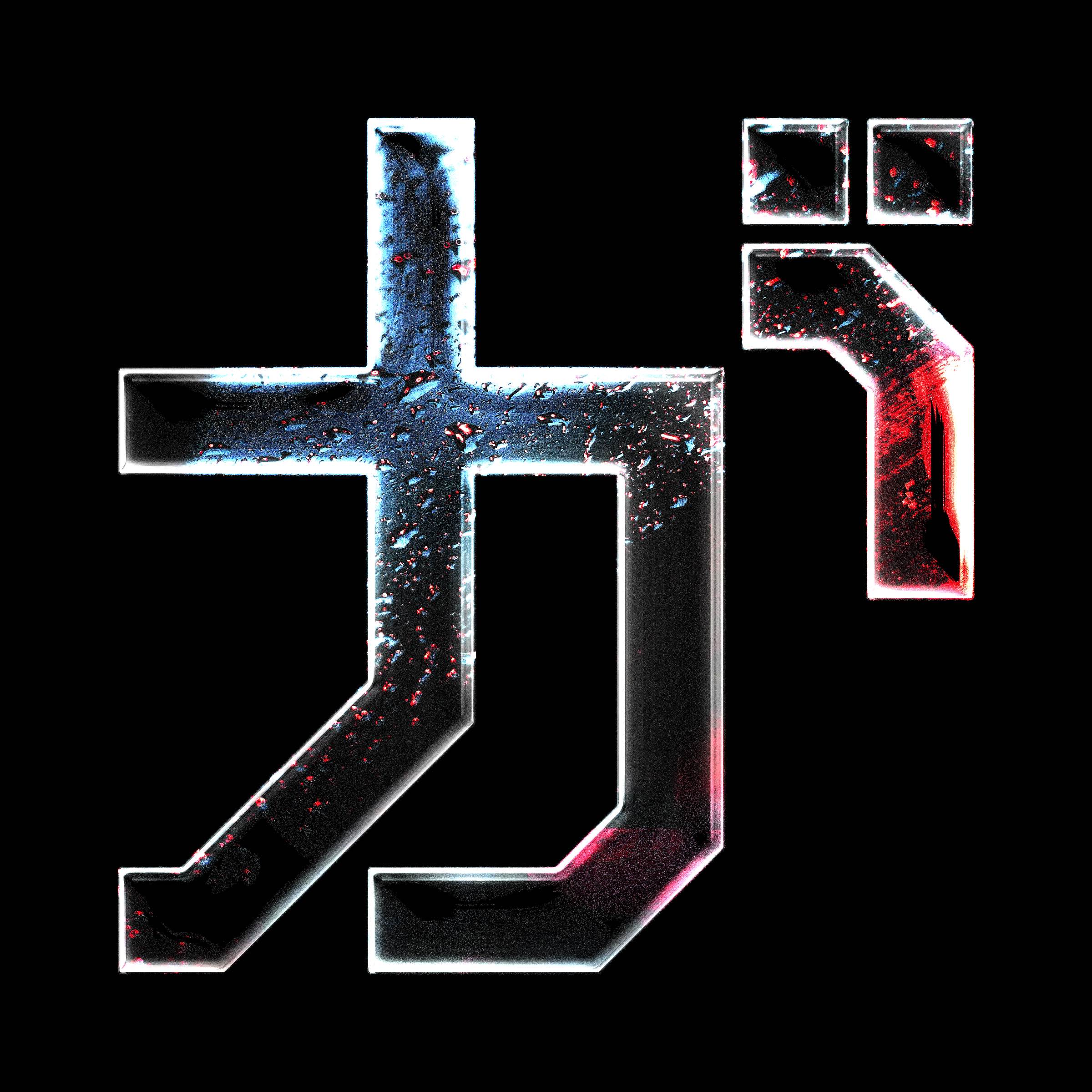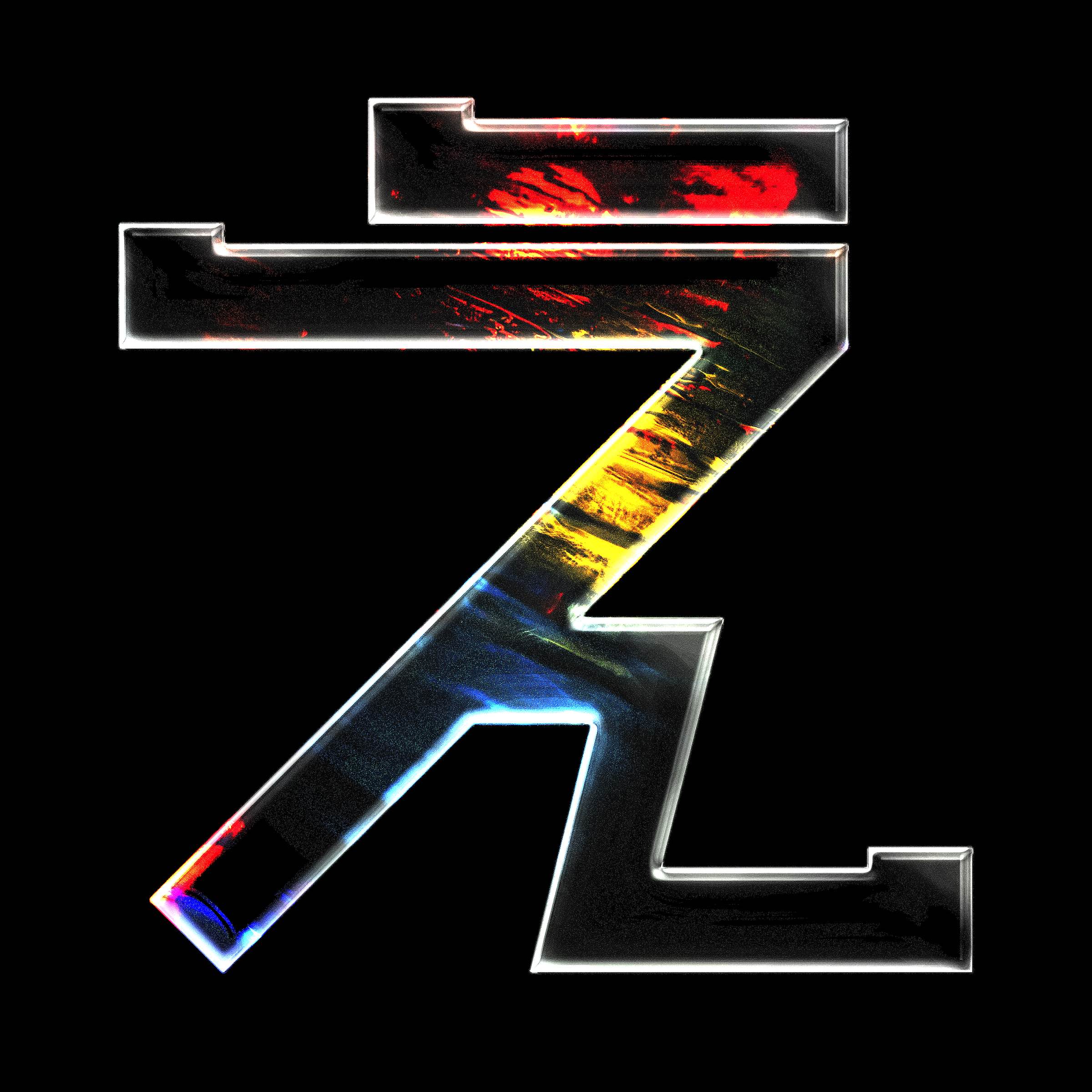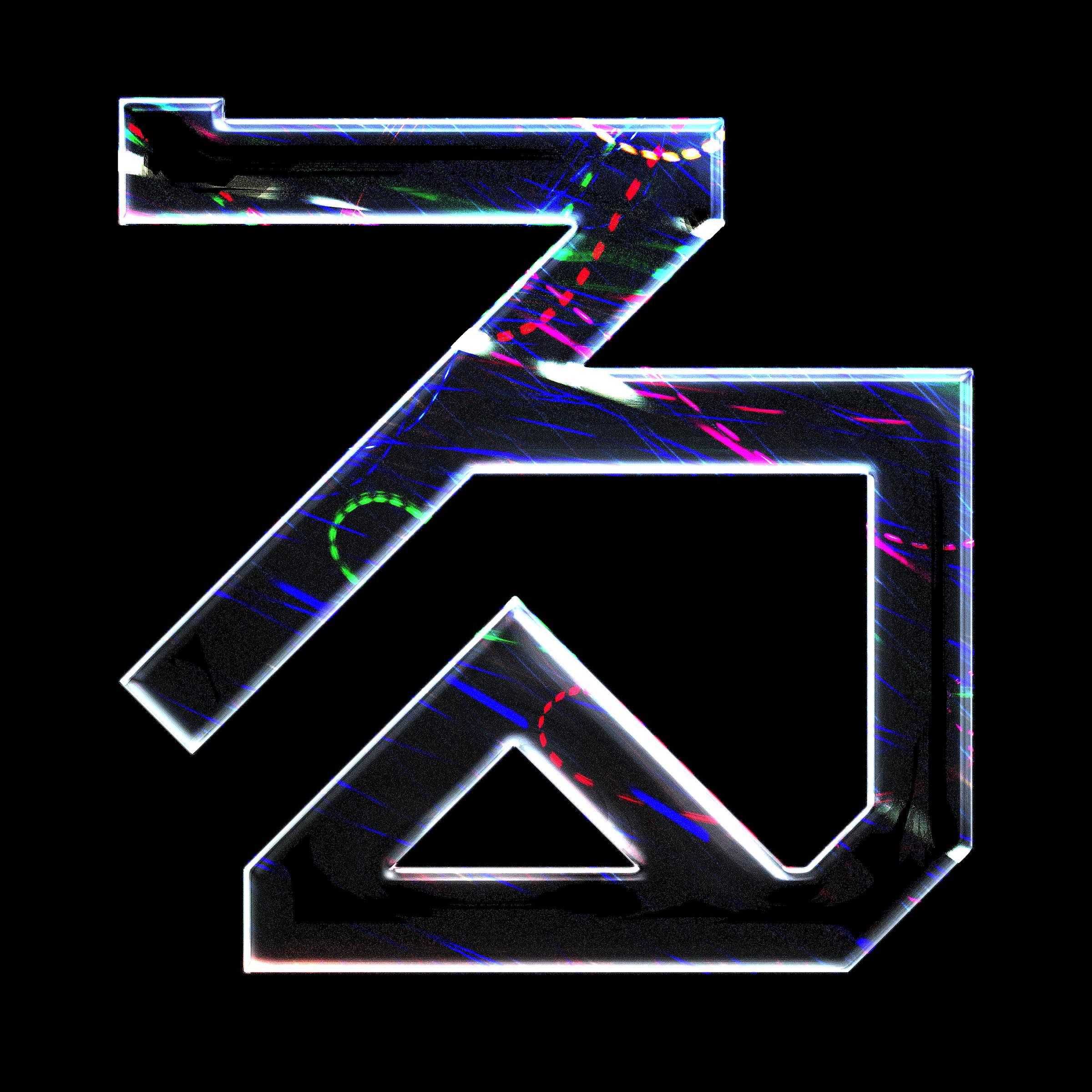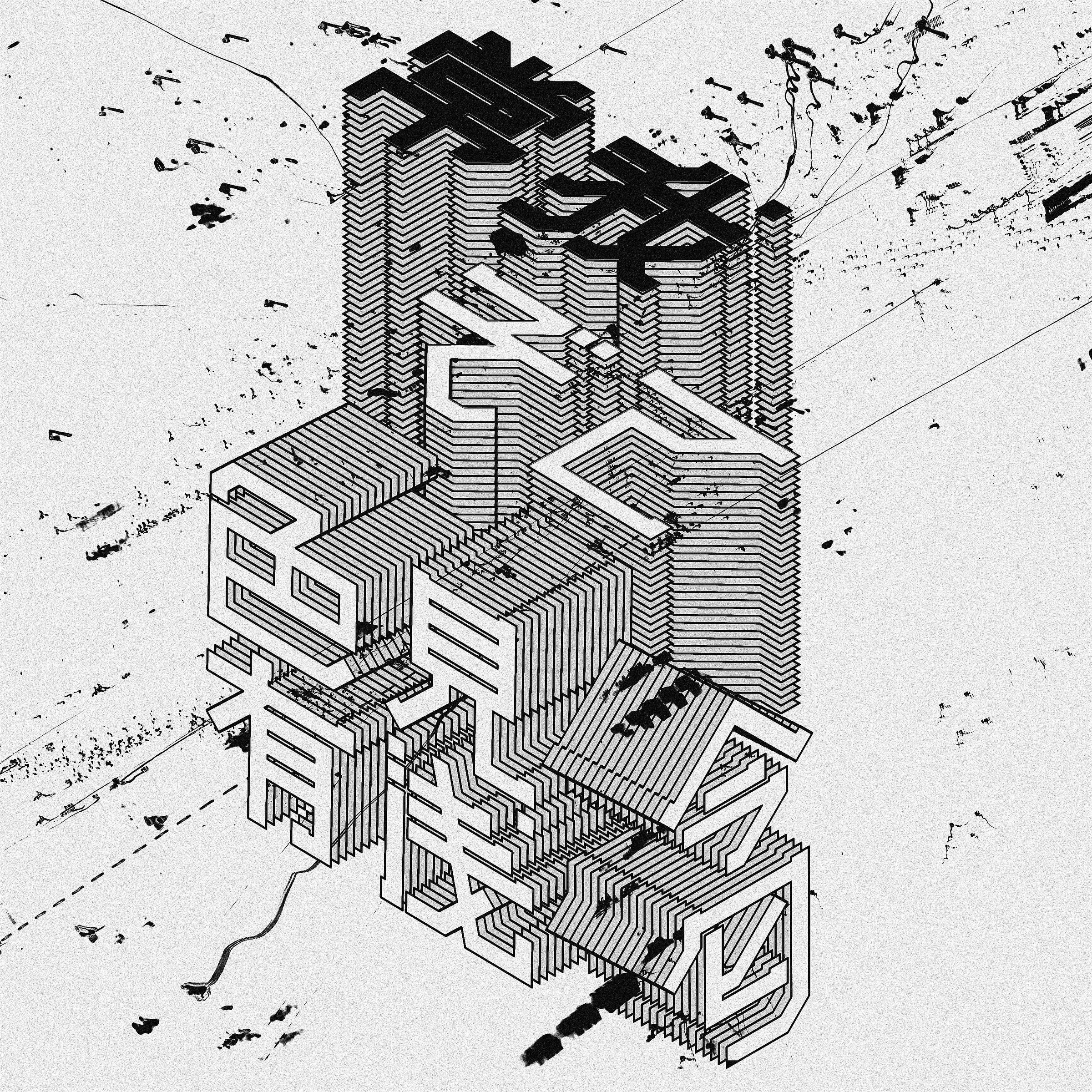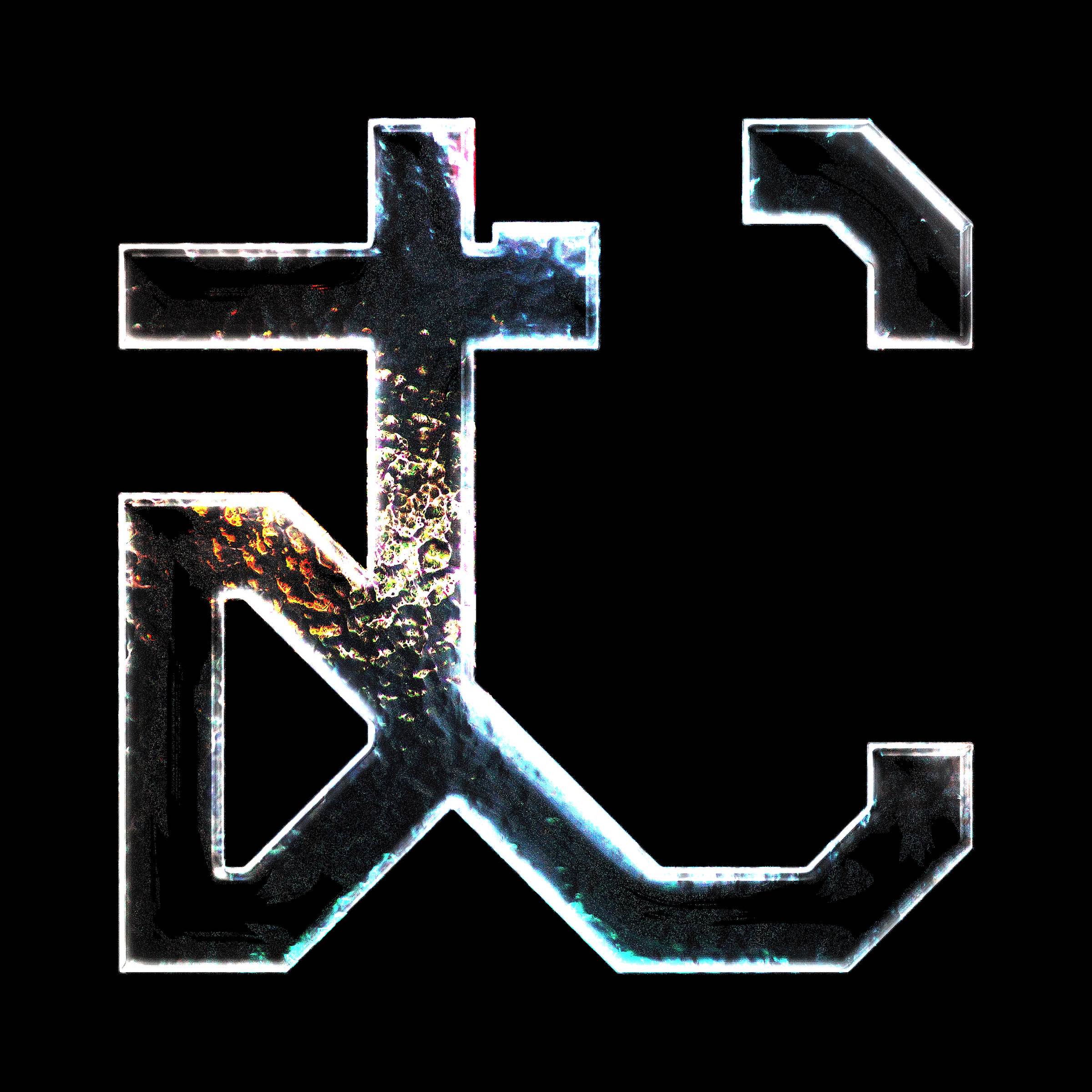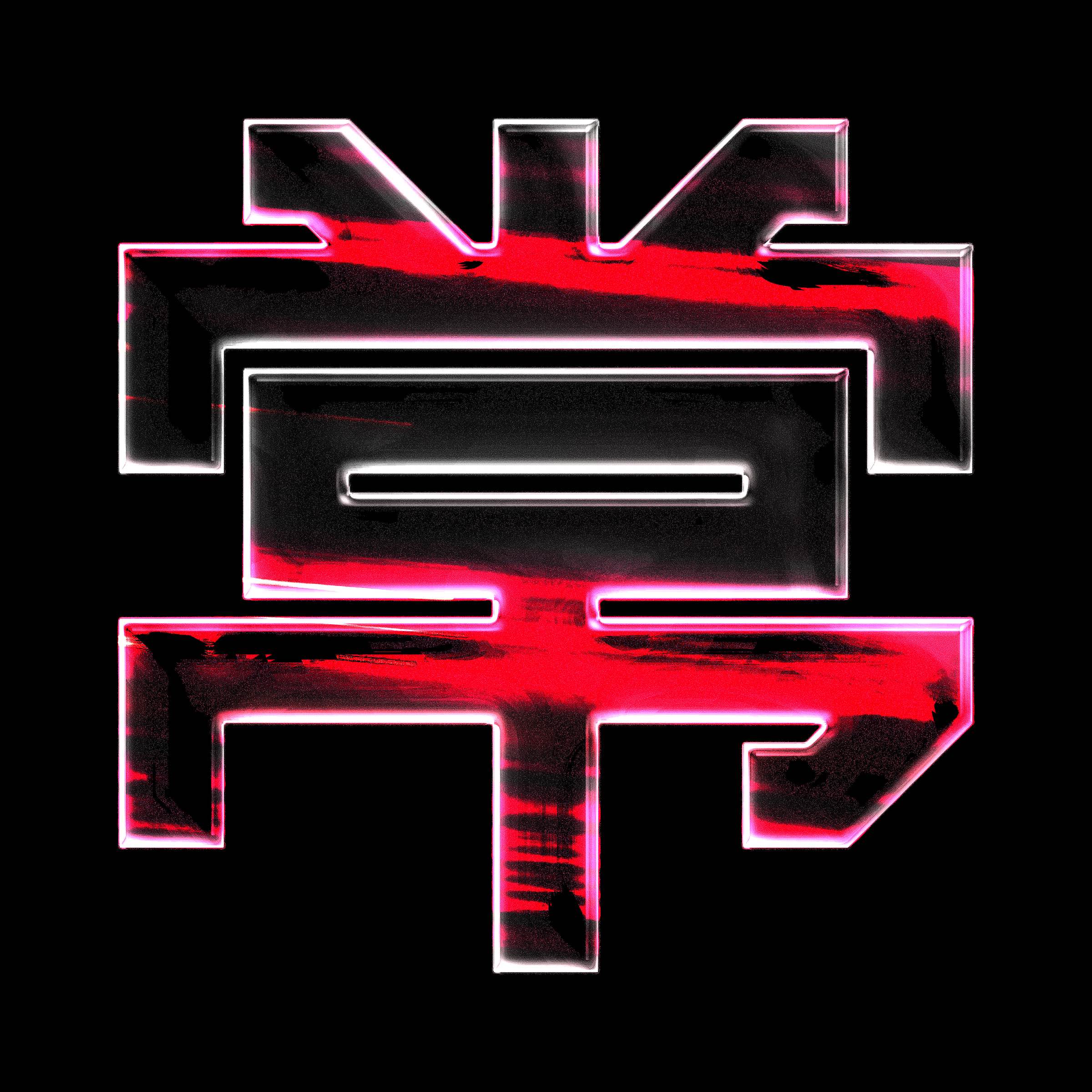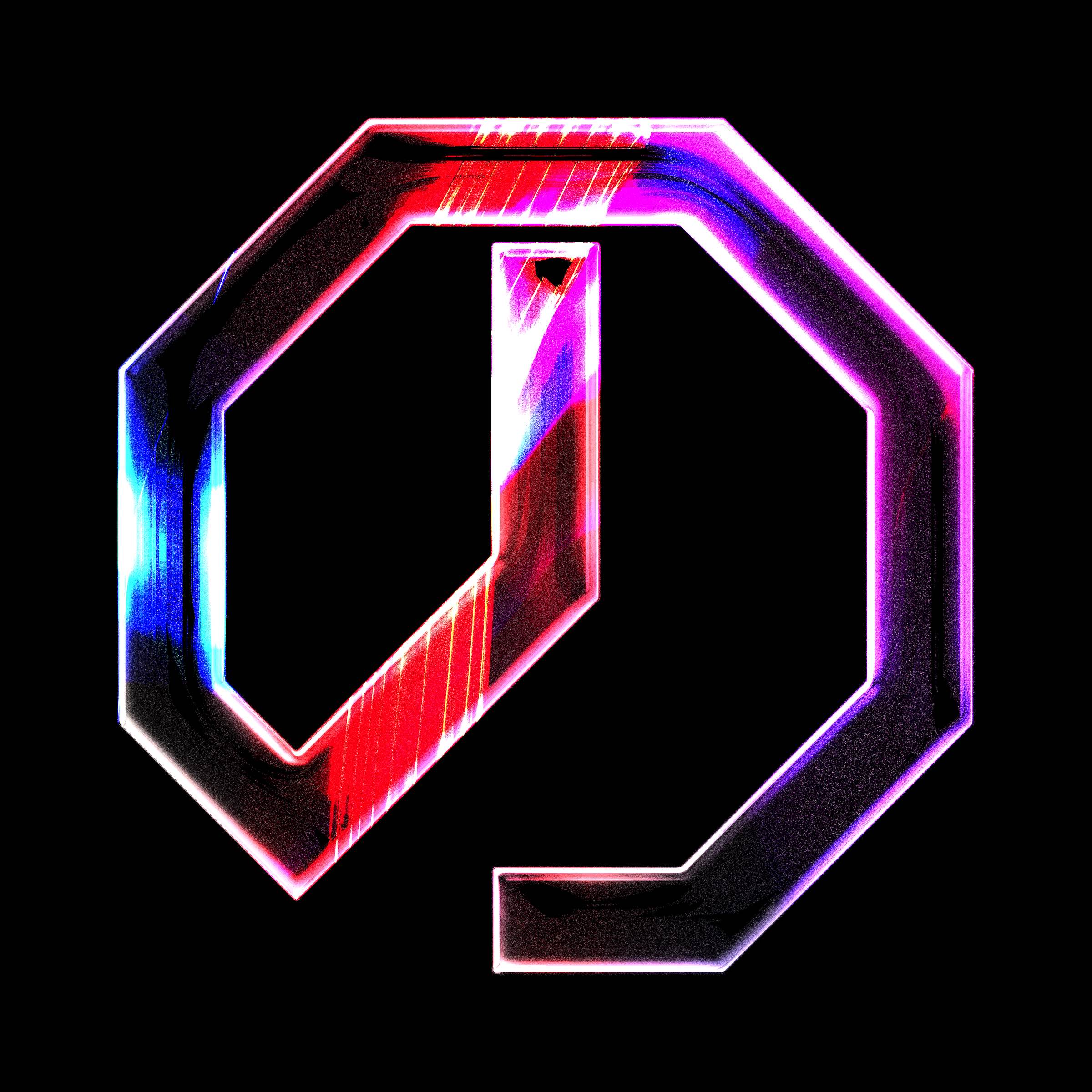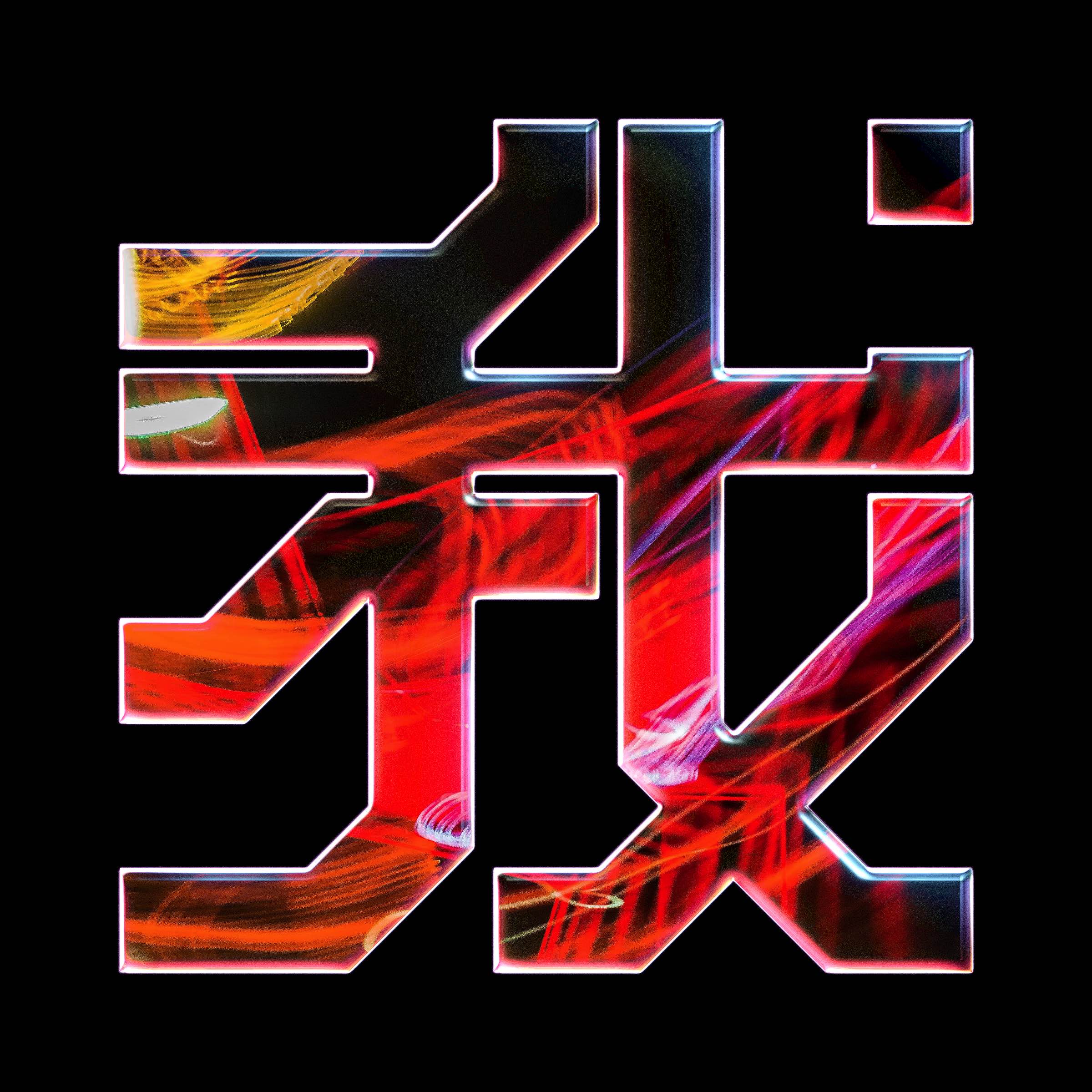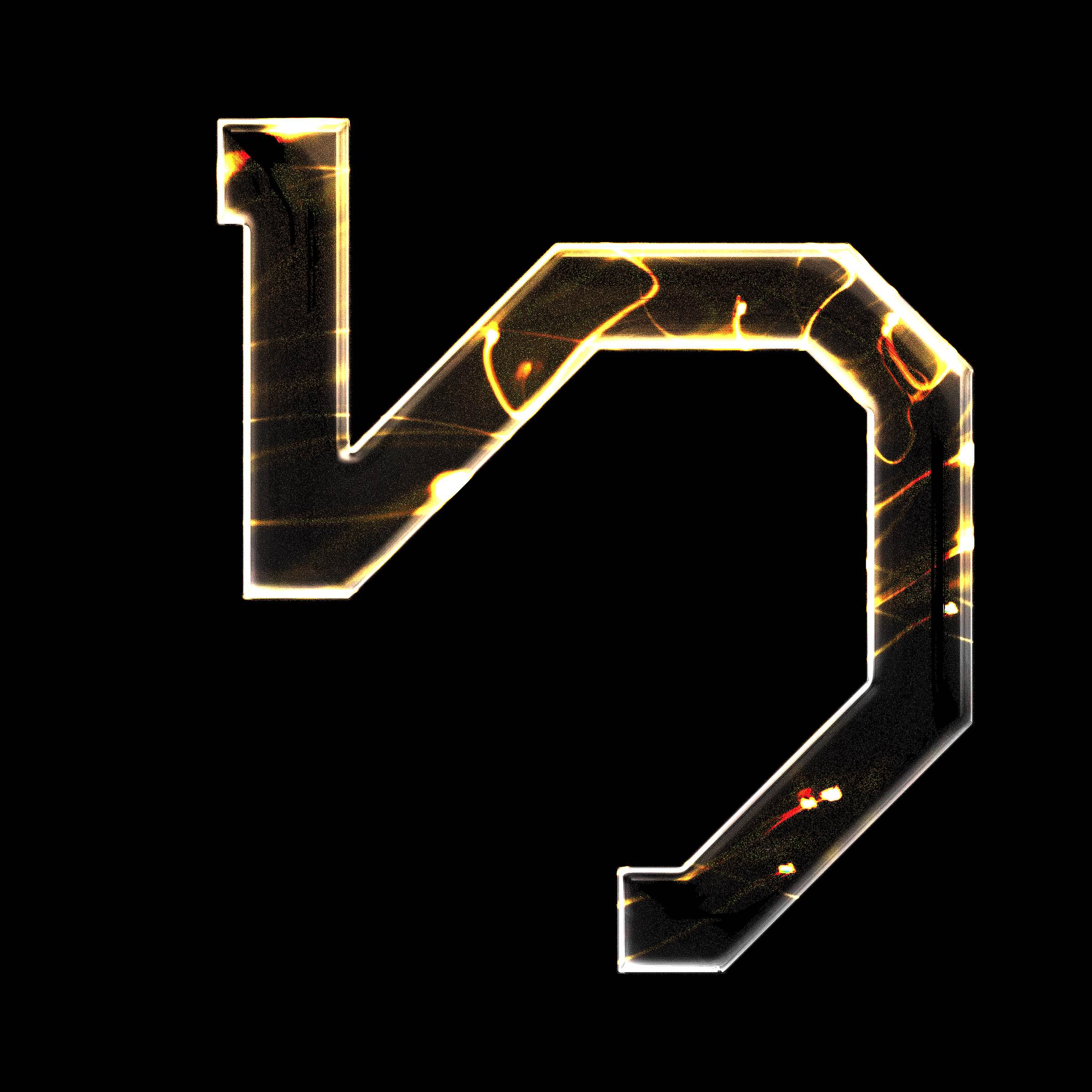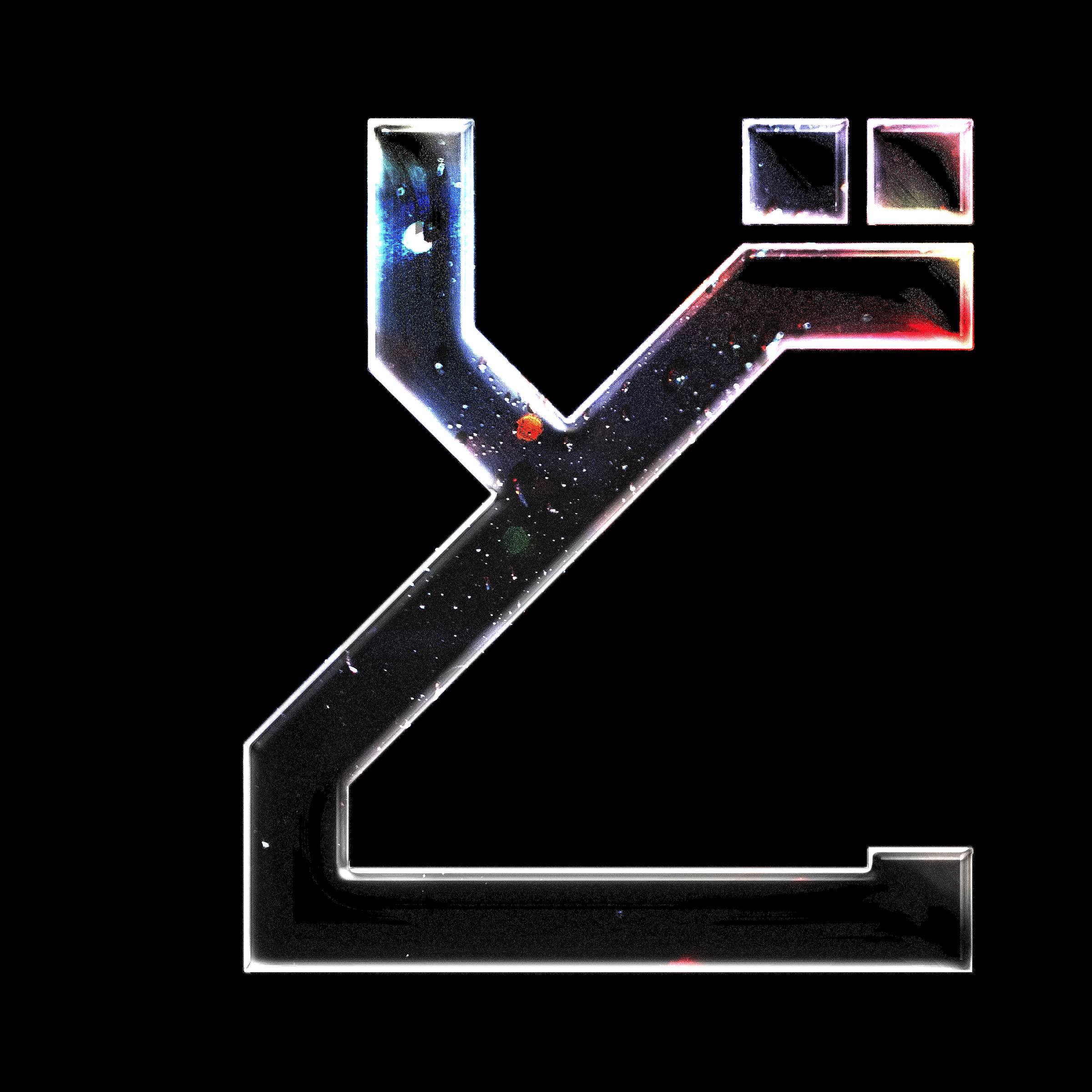
Nippon Neo Typeface
An ultra bold geometric Japanese typeface inspired by minimalism and manga. An ongoing labour of love project working through 2,100 essential Kana, Joto and Hiragana [with a little Latin love in there too]. Check back in year 3033 for the full 50,000 if you’ve not yet uploaded your conciousness to the net. ;)